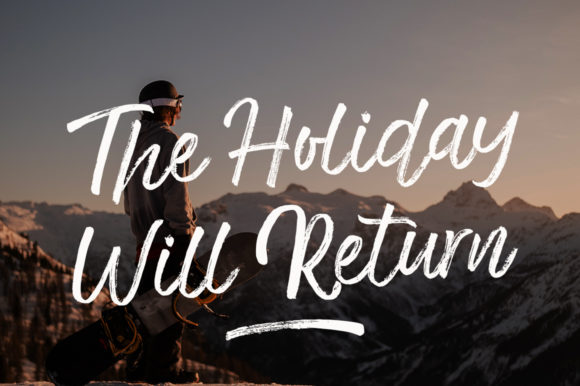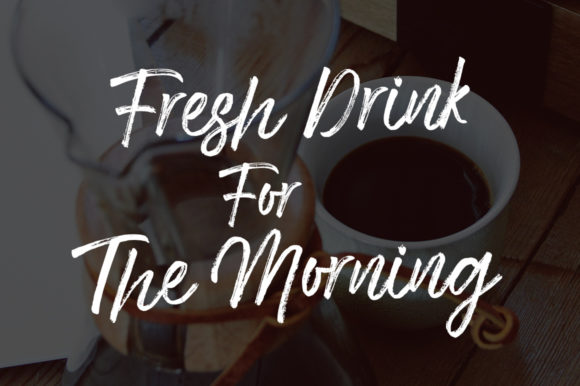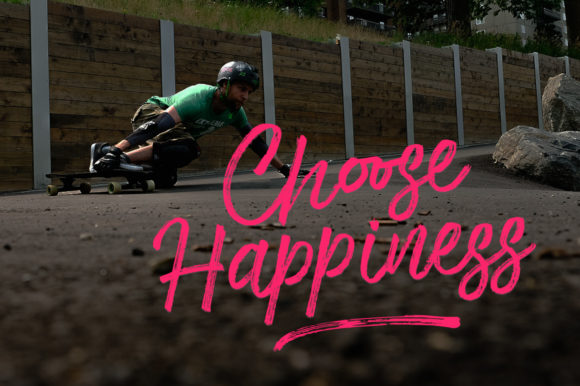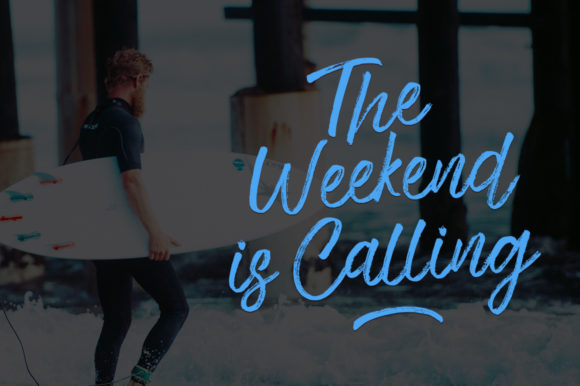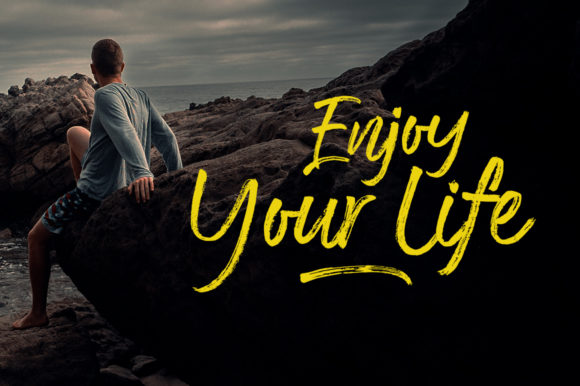
Introducing Choose Time Font: The Ultimate Cursive Brushed Handwritten Font
Are you tired of using the same old fonts for your creative projects? Look no further! Choose Time Font is a stunning cursive brushed handwritten font that is sure to take your designs to the next level. With its unique and elegant style, this font is perfect for designers, crafters, and anyone looking to add a personal touch to their work.
What is Choose Time Font?
Choose Time Font is a carefully crafted cursive brushed handwritten font that exudes elegance and sophistication. Its flowing lines and delicate strokes make it perfect for a variety of design projects, from wedding invitations and greeting cards to branding and advertising materials. This font is designed to be versatile and can be used for both personal and commercial projects.
Key Features of Choose Time Font
- Unique and Elegant Style: Choose Time Font boasts a distinctive cursive brushed handwritten style that sets it apart from other fonts.
- High-Quality Design: Masterfully designed to ensure that every letter and stroke is perfect, making it suitable for high-end designs.
- Versatile: Can be used for a wide range of projects, from digital designs to print materials.
- Easy to Read: Despite its elegant style, Choose Time Font remains highly legible, making it perfect for body text and headings.
Why Choose Choose Time Font?
With so many fonts available, why should you choose Choose Time Font? Here are a few compelling reasons:
- Stand Out from the Crowd: This font’s unique style ensures that your designs will stand out and grab attention.
- Save Time: With Choose Time Font, you can create stunning designs in no time, thanks to its high-quality design and ease of use.
- Professional Results: Achieve professional-looking results without the need for extensive design experience.
How to Use Choose Time Font
Using Choose Time Font is easy! Here are a few tips to get you started:
- Pair it with Other Fonts: Combine Choose Time Font with other fonts to create stunning contrast and visual interest.
- Experiment with Colors: Try out different colors and textures to add depth and emotion to your designs.
- Play with Sizes: Use Choose Time Font in various sizes to create visual hierarchy and emphasis.
Who Can Benefit from Choose Time Font?
Choose Time Font is perfect for:
- Graphic Designers: Add a touch of elegance to your designs and take your clients’ projects to the next level.
- Crafters: Create beautiful handmade cards, invitations, and other paper crafts with this stunning font.
- Small Business Owners: Establish your brand identity with a unique and memorable font.
In conclusion, Choose Time Font is an exceptional cursive brushed handwritten font that can elevate your designs and take your creative projects to new heights. Its unique style, high-quality design, and versatility make it an excellent choice for designers, crafters, and anyone looking to add a personal touch to their work. So why wait? Choose Choose Time Font today and discover a world of creative possibilities!